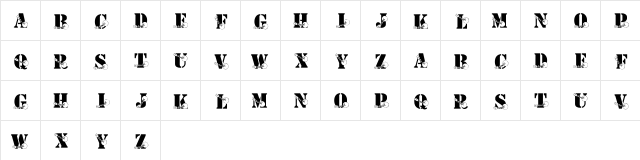
KR Ball N Chain Regular
Design Context for KR Ball N Chain Typeface
KR Ball N Chain is a composed and adaptable typeface that performs quietly and consistently across a wide range of design contexts.
Pro Tip: Use KR Ball N Chain in both headline and body roles to test its range before committing to a single application.